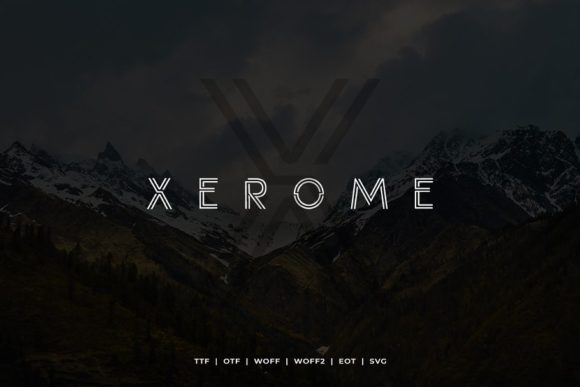
Unleash the Power of Xerome Font: A Typographic Masterpiece for Web Apps
Step into the world of digital aesthetics with Xerome Font, a groundbreaking display font that will transform your web applications into visual masterpieces. This font is a stroke of genius, meticulously crafted to elevate the user experience with its clean and creative style. Xerome is not just a font; it's a gateway to a world of visual allure and captivating engagement.
Welcome to the realm of Xerome, the display font that redefines digital typography. This captivating font family is the brainchild of Webhance, a renowned foundry known for its commitment to innovation and excellence. Prepare to be mesmerized as Xerome takes you on a visual journey unlike any other, captivating your audience with its charm and sophistication.
With Xerome, every web application becomes a canvas for creativity. This font family is a versatile chameleon, adapting effortlessly to a myriad of digital creations. From sleek and modern interfaces to dynamic and engaging landing pages, Xerome seamlessly blends into your vision, adding a touch of elegance and originality. The possibilities are limitless, bound only by your imagination.
Discover the allure of Xerome, a display font that captivates with its simplicity and captivates with its modern appeal. Its clean lines and creative curves dance harmoniously, creating a symphony of visual delight. Each letterform is a work of art, meticulously designed to evoke emotion and leave a lasting impression on your users.
Xerome is more than just a font; it's an experience. Its timeless design transcends trends, ensuring that your web applications remain visually stunning for years to come. Embrace the power of Xerome and watch as your web creations blossom into captivating masterpieces, leaving a trail of digital footprints that will inspire and engage your audience.
In a world saturated with mediocrity, Xerome stands as a beacon of originality, a testament to the transformative power of great design. Its ability to elevate the user experience is unparalleled, leaving your audience spellbound and eager for more. Don't settle for ordinary fonts; embrace the extraordinary with Xerome.